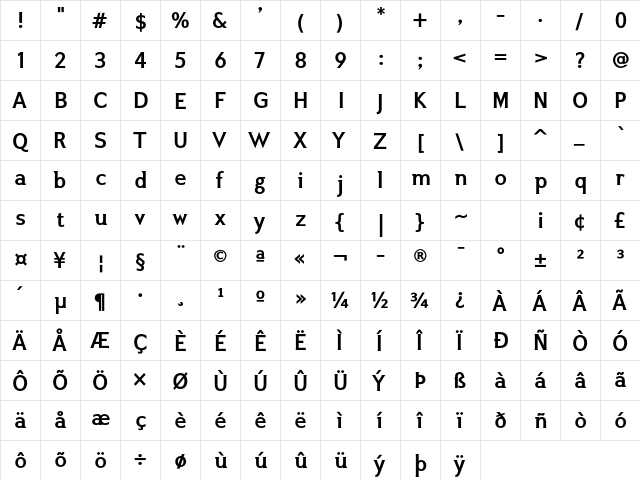
Ikarius ADF No2 Std Bold
| Foundry | Arkandis Digital Foundry. |
| Designer | HARENDAL Hirwen |
Design Context for Ikarius ADF No2 Std Typeface
Ikarius ADF No2 Std offers clean, dependable letterforms without strong stylistic allegiance, making it a practical choice for designers who need flexibility. The heavy weight commands attention and anchors typographic hierarchies.